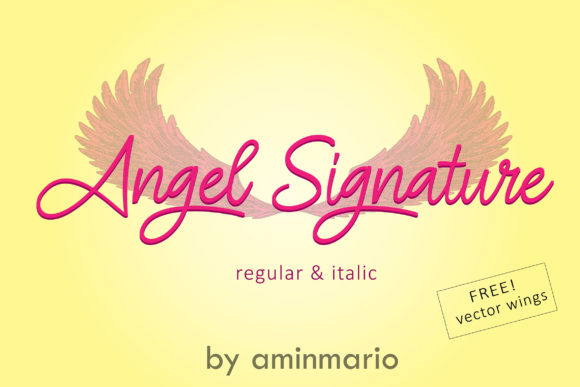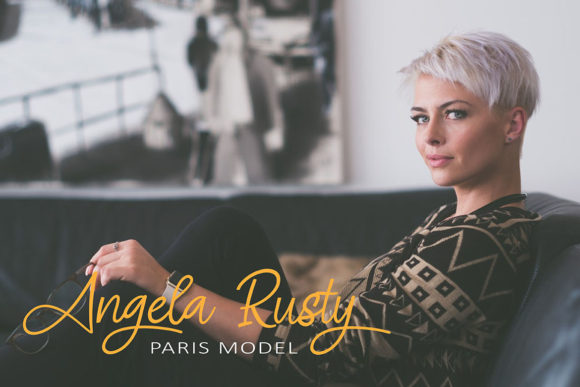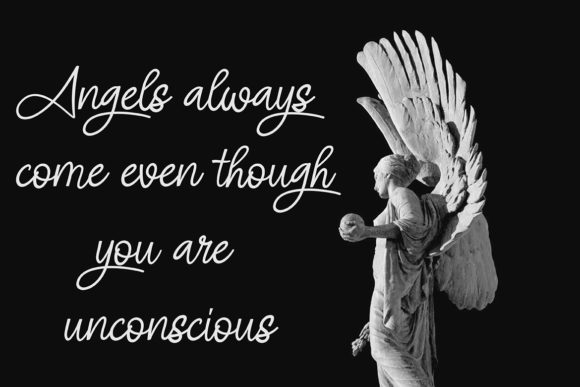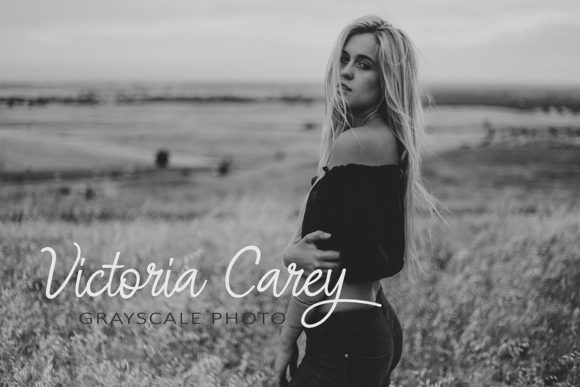
Angel Signature Font: A Romantic Script for Wedding & Logo Design
About the Angel Signature Font
Meet Angel Signature Font, a stunning font that brings a touch of elegance and professionalism to any design. Angel Signature is an equally authentic and elegant script font. Fall in love with its romantic charm.
Its elegant, flowing forms make Angel Signature ideal for projects requiring a touch of refined sophistication. Consider using it for logos, wedding invitations, or short headlines where its romantic charm can shine. However, its decorative nature makes it less suitable for body text or UI elements where readability is paramount; long passages set in this script would be difficult to decipher.
Pair Angel Signature with a clean sans-serif like Lato for a contemporary contrast, or a classic serif such as Garamond for a more traditional feel. A simple geometric sans-serif would also provide a strong counterpoint, allowing the script’s elegance to stand out.
The overall personality of Angel Signature is romantic and sophisticated, yet approachable. It conveys a sense of timeless elegance without feeling overly fussy or pretentious.